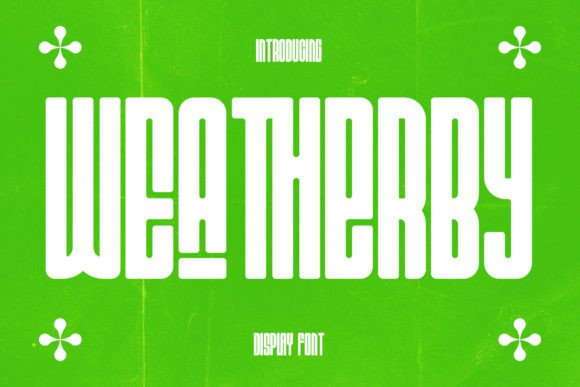
Wea Therby: The Definitive Y2K Display Font for Futuristic Design
In the landscape of digital typography, few styles capture the specific energy of the early 2000s quite like Wea Therby. This font is not merely a collection of characters; it is a visual time machine that transports viewers back to an era where chrome, neon, and high-gloss interfaces defined the future. As a highly detailed and slick display typeface, Wea Therby bridges the gap between retro nostalgia and modern cyberpunk aesthetics. For designers, brand managers, and creative directors looking to inject a dose of futuristic flair into their projects, understanding how to leverage this specific aesthetic is crucial for standing out in a crowded digital marketplace.
The Aesthetic DNA of Wea Therby
At its core, Wea Therby embodies the "Y2K" design philosophyโa period characterized by an optimistic belief in technology, sleek surfaces, and a distinct blend of organic curves with rigid geometric structures. Unlike standard sans-serif fonts that prioritize readability over style, Wea Therby is designed as a statement piece. Its glyphs feature sharp angles, elongated strokes, and intricate detailing that mimic the look of holographic displays or metallic signage found in science fiction films.
When you apply Wea Therby to a project, you are immediately signaling a specific mood. It suggests speed, innovation, and a touch of rebellious cool. The font's structure allows it to stand alone as a graphic element, often requiring minimal additional decoration to make an impact. This makes it an ideal choice for headlines, logos, and short bursts of text where visual impact is more important than long-form legibility.
Cyberpunk and Sci-Fi Visuals
For creators working within the cyberpunk genre, Wea Therby is an indispensable tool. Whether you are designing assets for a video game, creating promotional material for a sci-fi novel, or building a website for a tech startup with a futuristic angle, this font provides the necessary atmosphere. Imagine a poster for an indie film set in a neon-drenched metropolis; using Wea Therby for the title instantly establishes the setting without needing a single pixel of background imagery.
The font's ability to render well with glow effects, gradients, and chromatic aberration makes it perfect for digital art. Artists can easily manipulate the vector paths to create the illusion of flickering neon signs or liquid metal textures. In these scenarios, Wea Therby acts as the anchor of the design, holding the chaotic energy of the cyberpunk aesthetic together with its structured yet edgy form.
Sports Branding and Athletic Wear
Beyond the realm of science fiction, Wea Therby has found a natural home in the world of sports branding. The athletic industry frequently draws on futuristic themes to convey power, speed, and cutting-edge performance. A sneaker company launching a new line of high-tech running shoes might use Wea Therby for their logo or packaging to suggest advanced engineering and aerodynamic efficiency.
Consider a streetwear brand targeting a younger demographic that values both vintage aesthetics and modern trends. By incorporating Wea Therby onto t-shirts, hoodies, or caps, designers can tap into the resurgence of Y2K fashion. The font's bold, aggressive lines translate exceptionally well to screen printing and embroidery, ensuring that the design remains visible and impactful even from a distance. In this context, the font serves as a badge of identity, appealing to consumers who want to project an image of forward-thinking style.
Vintage Revival and Retro Marketing
The cyclical nature of design trends means that what was once considered outdated is now highly desirable. Wea Therby capitalizes on the current wave of nostalgia for the late 90s and early 2000s. Marketers aiming to evoke a sense of "remember when?" while maintaining a fresh edge can utilize this font to create campaigns that feel both familiar and new.
This is particularly effective in the music and entertainment industries. Album covers, tour posters, and merchandise for electronic dance music (EDM) artists often rely on this aesthetic to connect with fans who grew up during that era. Even businesses that have no direct connection to technology can benefit from the retro-futuristic vibe. A coffee shop with a "retro-wave" theme or a bar featuring arcade games could use Wea Therby for their menu boards and signage to create an immersive experience for their customers.
Practical Considerations for Implementation
While Wea Therby offers immense creative potential, it is essential to approach its use with strategic intent. Because it is a display font, it is best suited for large sizes and short phrases. Using it for body text or lengthy paragraphs will likely result in poor readability and a cluttered appearance. Designers should reserve Wea Therby for headlines, logos, and call-to-action buttons where its unique character can shine without compromising user experience.
Another critical factor is the pairing of fonts. To maintain balance, Wea Therby should be paired with a clean, neutral sans-serif or serif font for supporting text. This contrast ensures that the futuristic headline grabs attention while the rest of the content remains accessible. For example, a poster might feature the event name in Wea Therby with a glowing effect, while the date, time, and location details are presented in a simple, white Helvetica or Arial.
Ultimately, Wea Therby is more than just a font; it is a design tool that tells a story. Whether you are crafting a logo for a new tech venture, designing a poster for a music festival, or creating illustrations for a sci-fi novel, this typeface offers a unique way to communicate your vision. By understanding its strengths and applying it thoughtfully, you can create work that resonates with audiences seeking a blend of the past and the future.